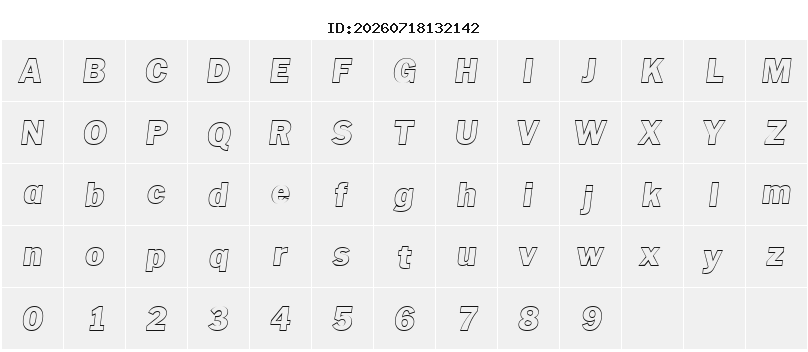
• Font Name: CarlBeckerOutline-Heavy
• Full Font Name: CarlBeckerOutline-Heavy-Italic
CarlBeckerOutline-Heavy.ttf is a modern, elegant sans-serif font designed for ultimate readability and visual harmony. Perfect for branding, headlines, web design, and print materials.